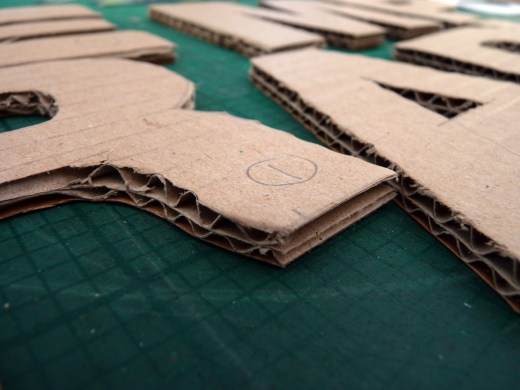
‘Abstract’ by Anthony Peters
‘Abstract’ by Anthony Peters
“London to me is abstract. The ghosts of speeding cars, glass and steel towers alongside 500 year old epic stonework. Abstract shapes viewed from a late night bus, blue skies carved up by the harsh right angles of tower blocks.”
‘Temporary’ by Anthony Peters
‘Temporary’ by Anthony Peters
“Many of the words picked by contributing artists for this project are celebratory, my first word is quite the opposite, A reflection on the homeless ‘culture’ and the existence of the homeless beneath the noses of the daily grind. Everything is temporary when you get moved on, when you nomadically source food, shelter and friendship. The material (cardboard) reflects a material used as shelter and as a ‘padding’ to buffer the hard cold concrete beds which many people sleep on in the city that never sleeps. Cardboard itself is temporary, ideally this piece of typography would be exhibited in a city doorway, to be poached and weathered until it is no more.”